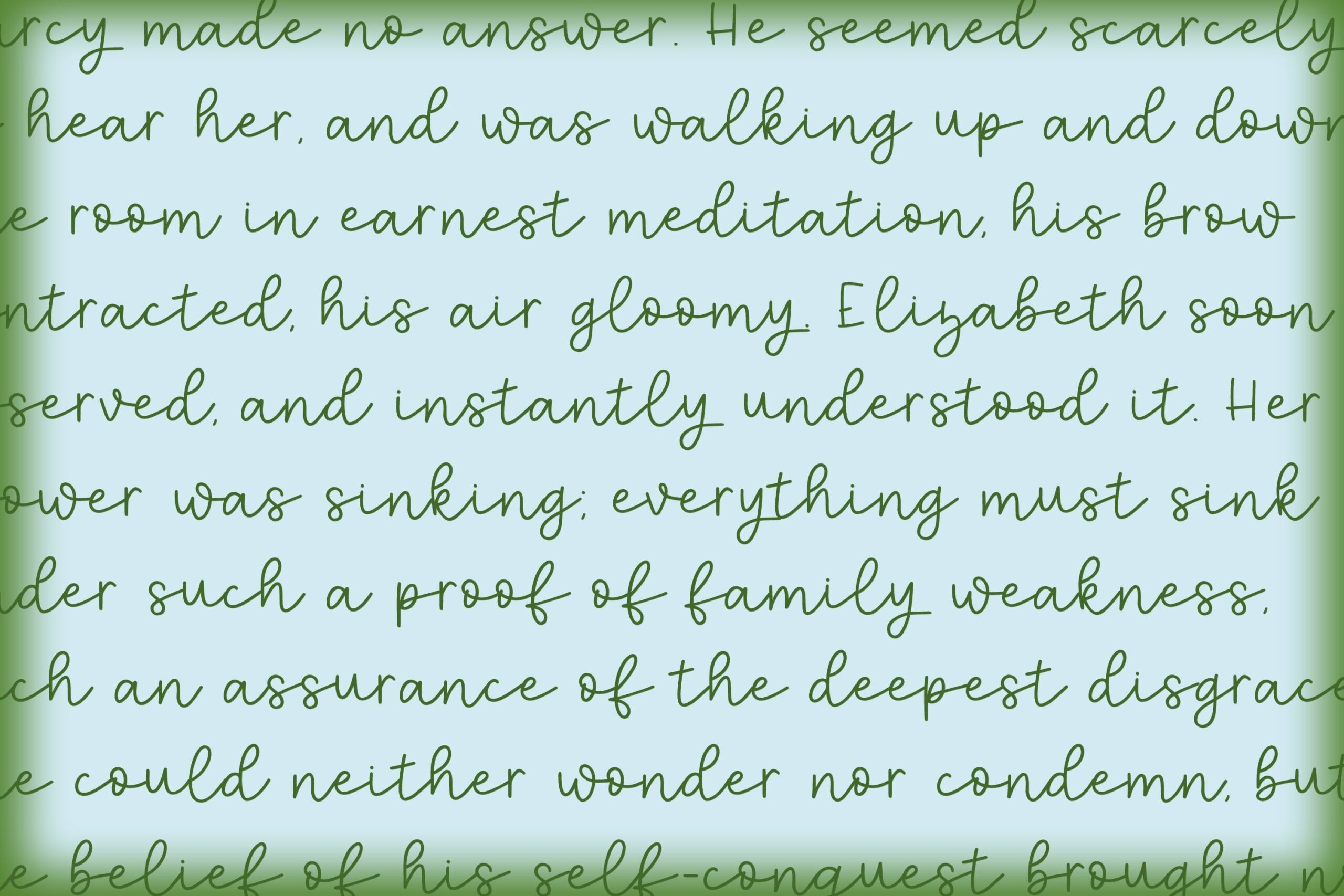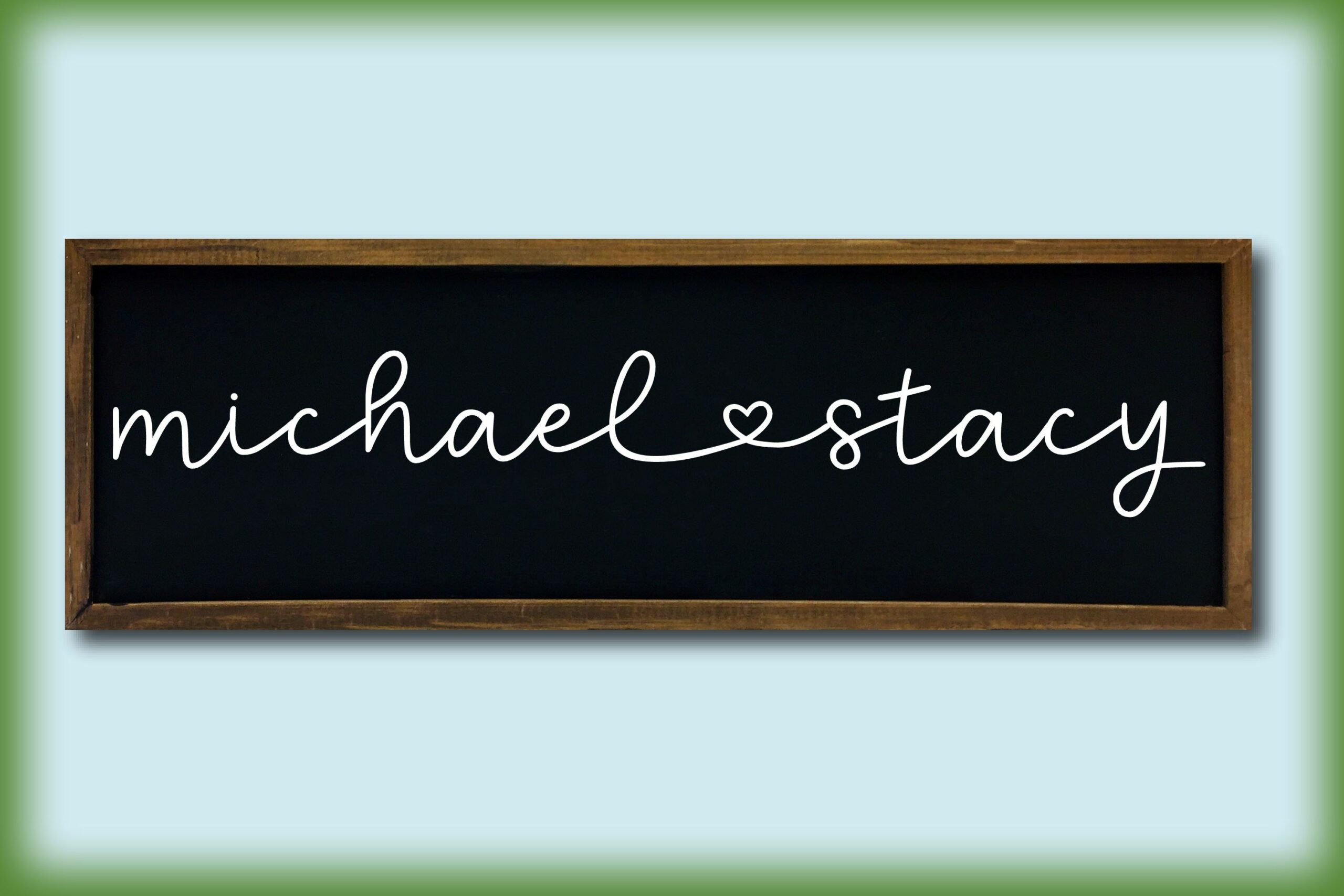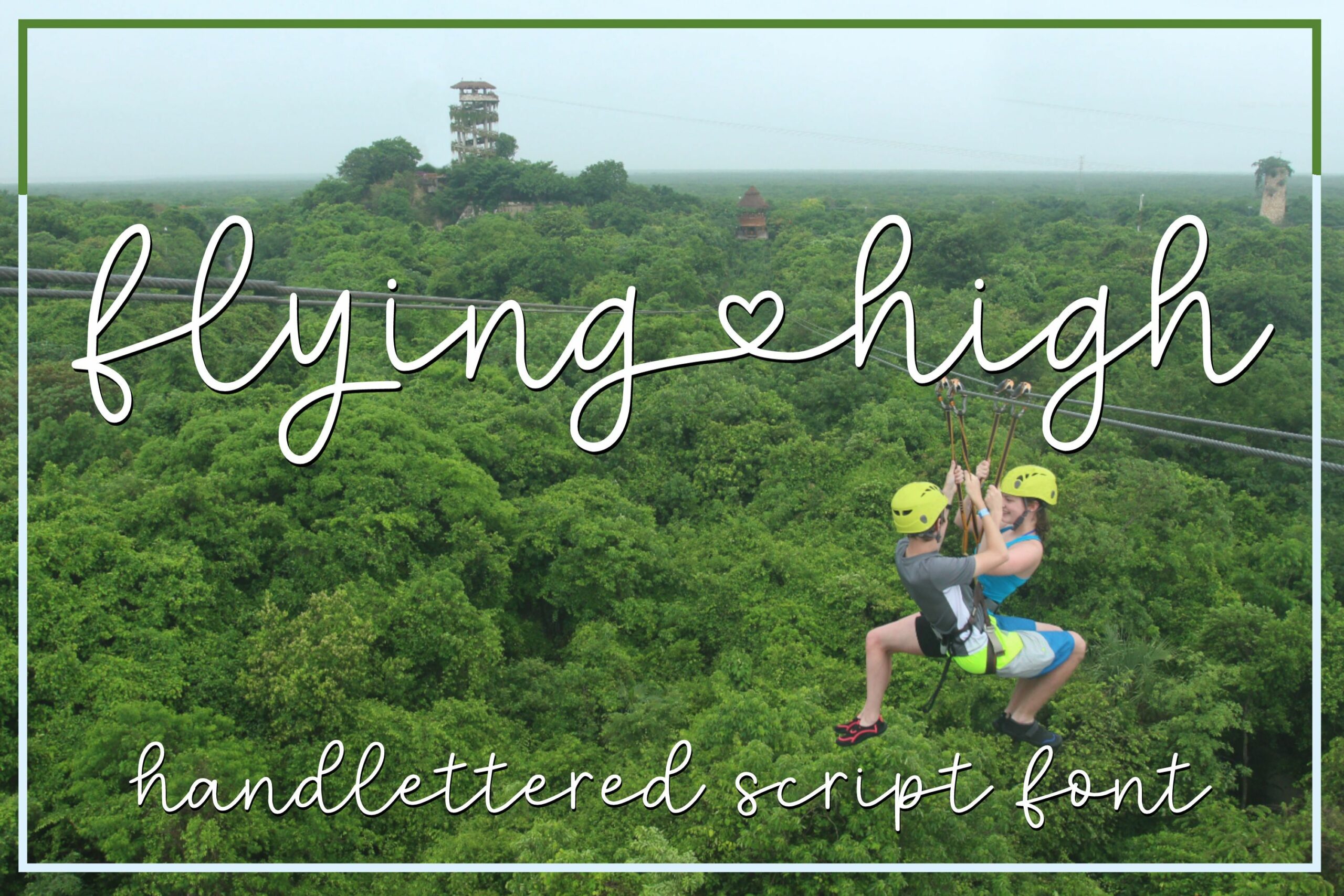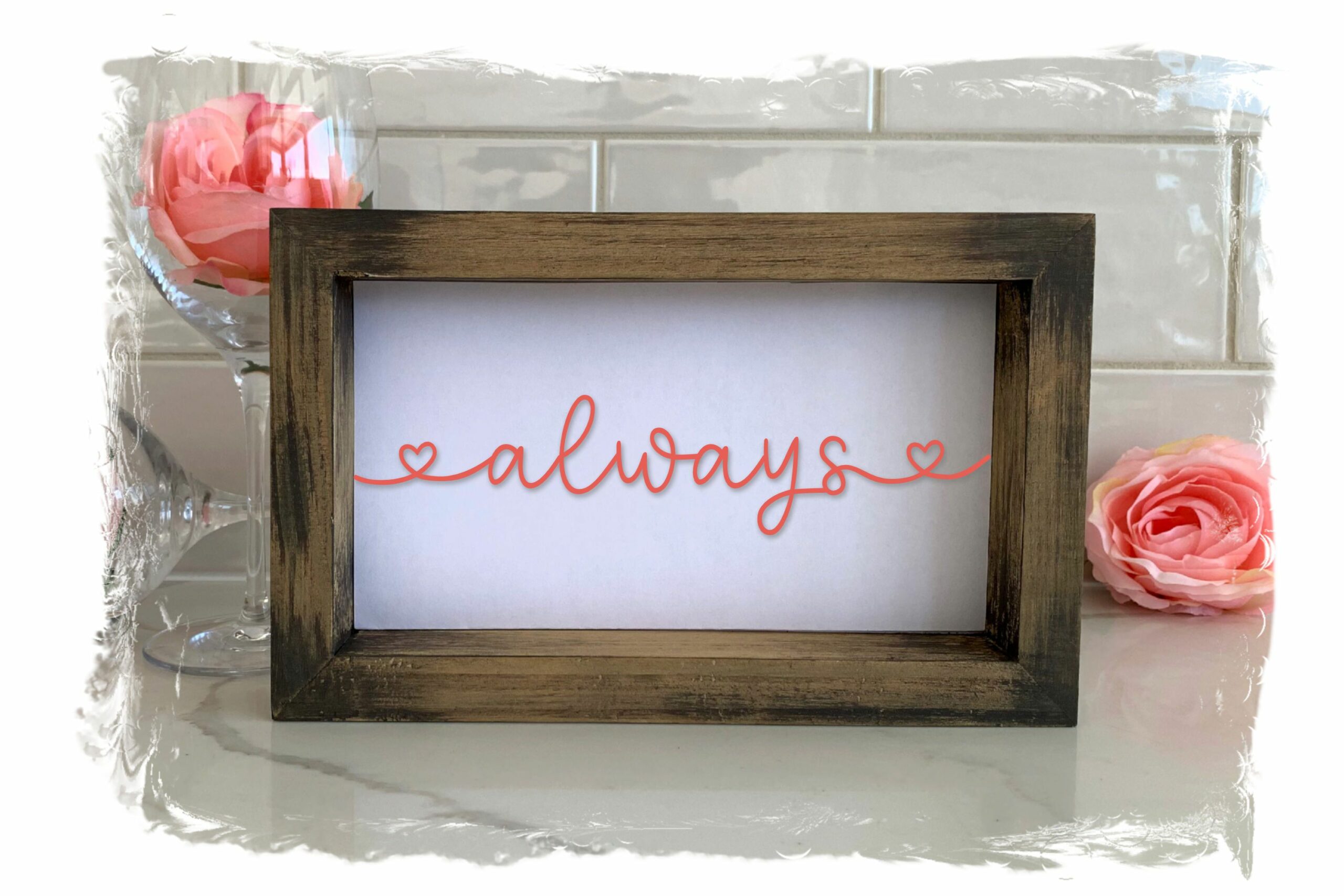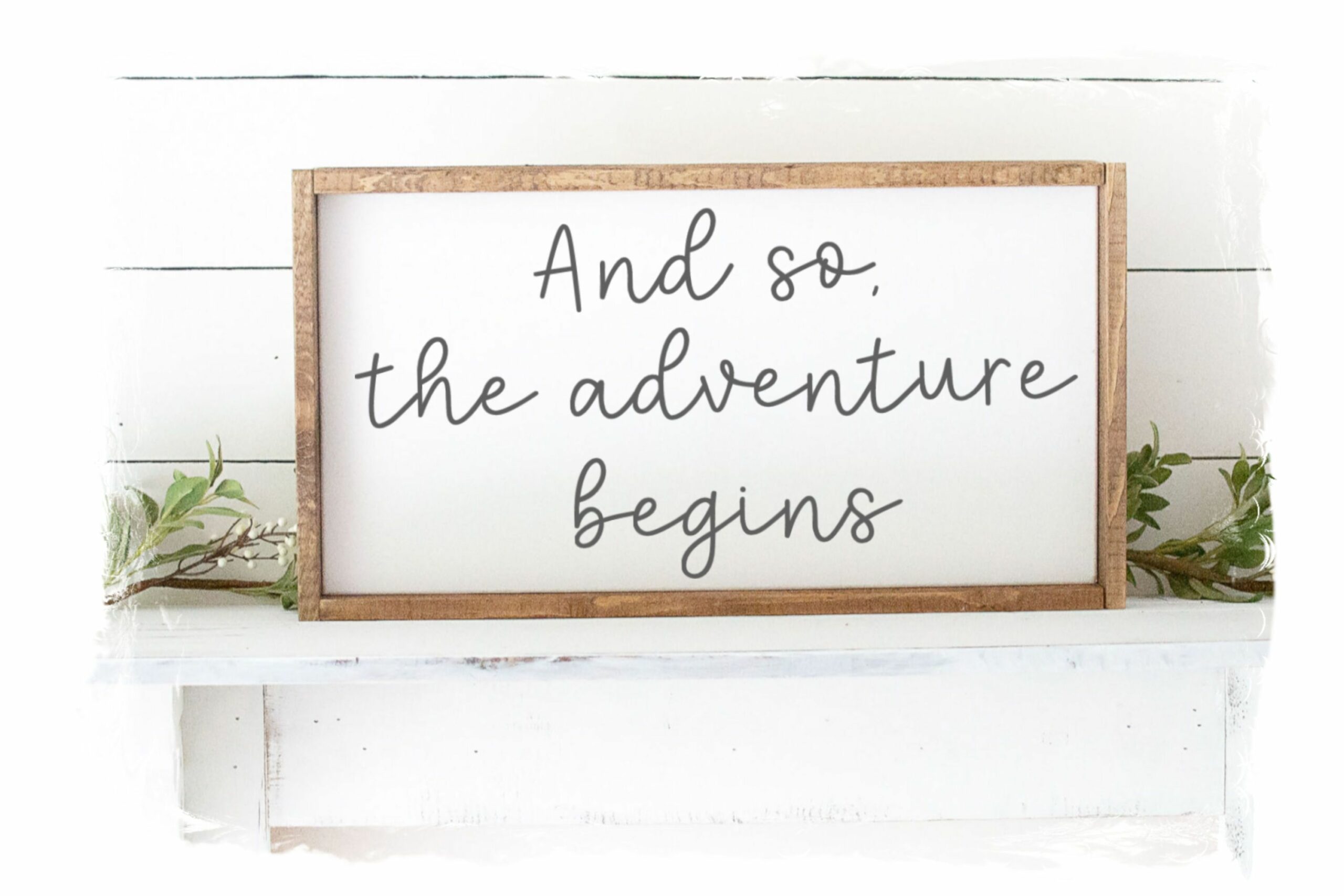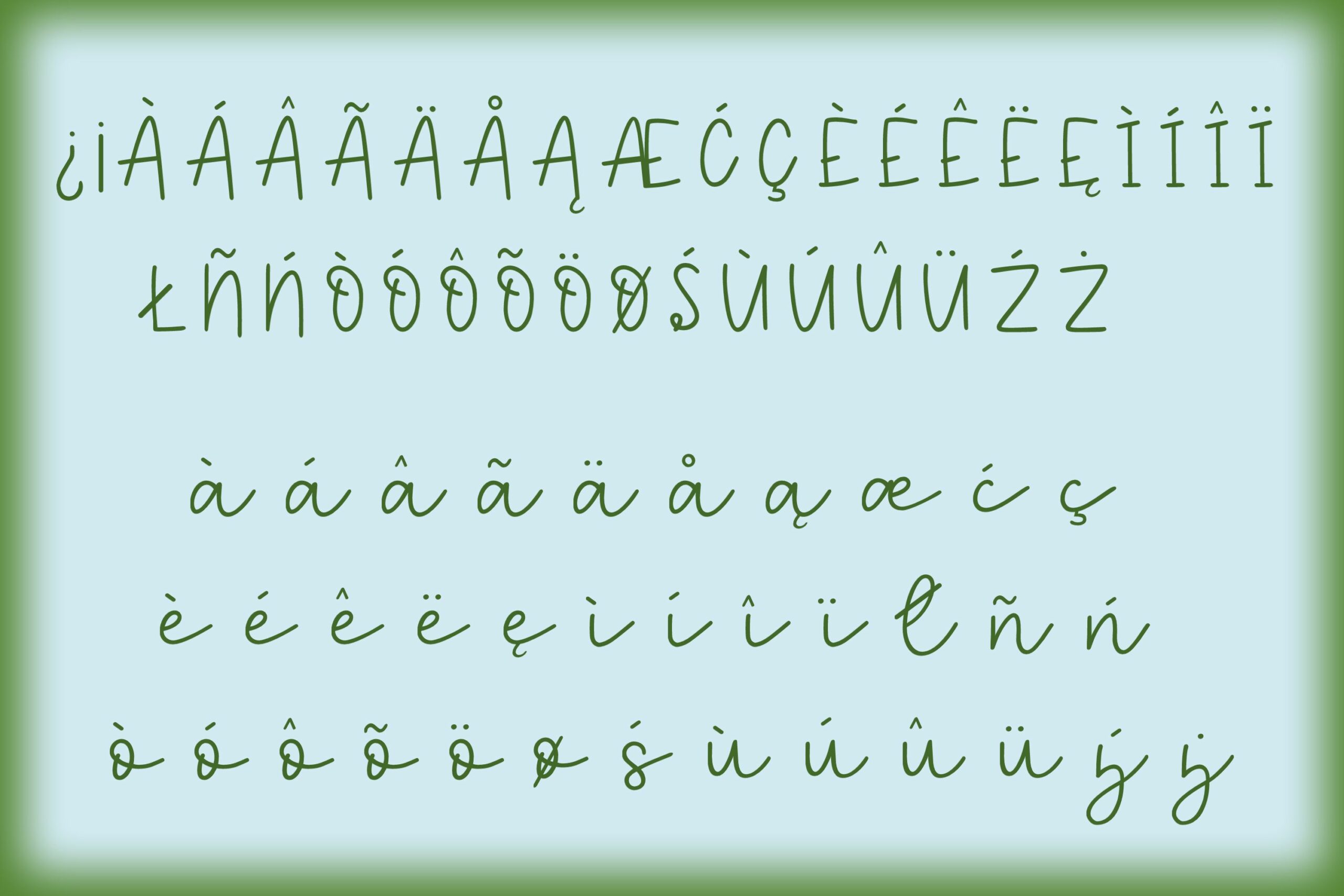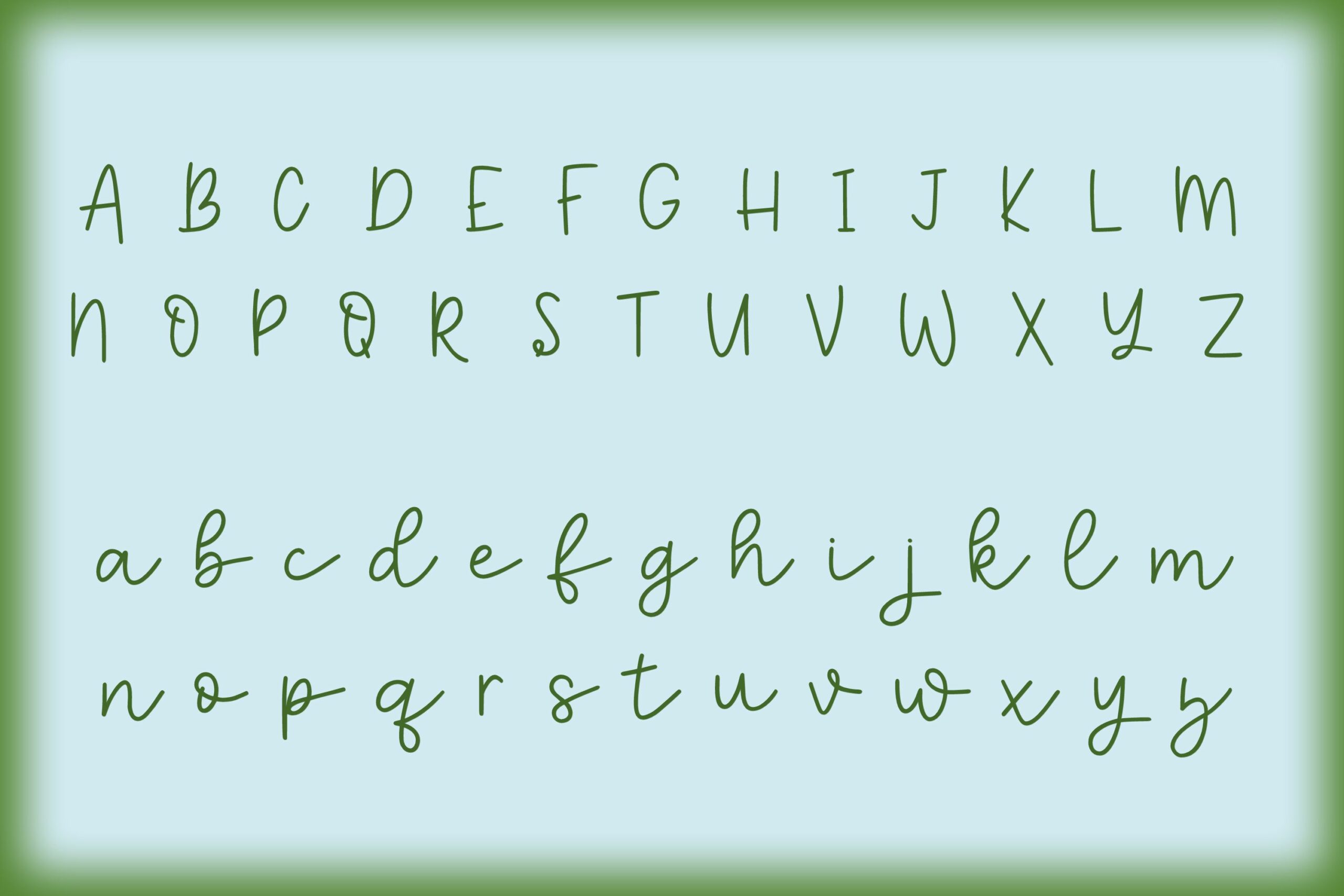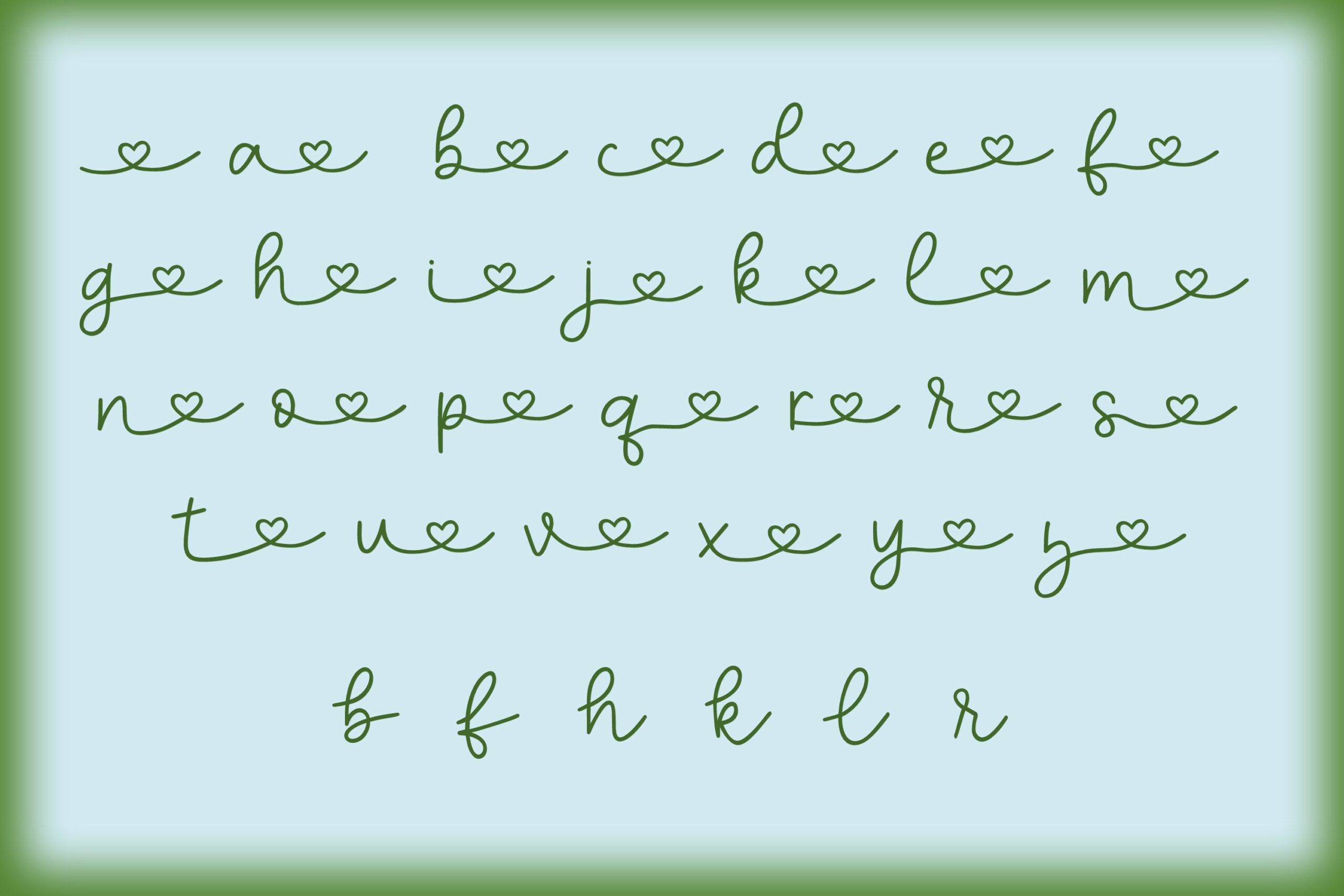
Flying High – A handlettered script font
About Flying High – A handlettered script font
Flying High is a handlettered monoline script font made up of capital letters A-Z, lowercase letters a-z, alternates, swashes, numbers 0-9, and punctuation. Flying High is great for cards, invitations, scrapbooking, SVG design, and more! This font can be used for personal or commercial projects. File Type: otf To connect names or words with the heart swash – Use the heart swash alternate letters (in your design program or character map) to replace the last letter of the first name. To use heart swashes as beginning and end swashes – Use the stand alone heart swash (bar key) before your text and use the heart swash alternate letters to replace the last letter.